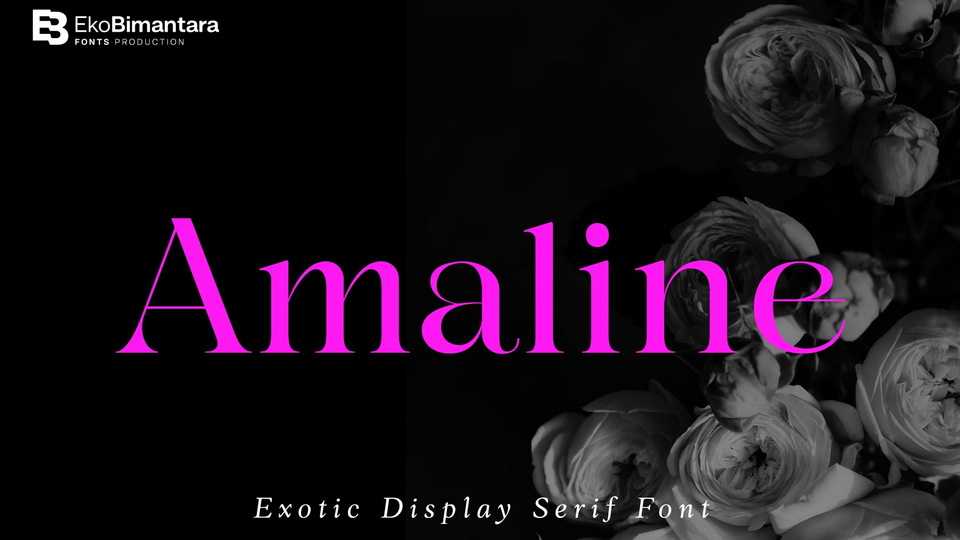
Download Amaline font, a high contrast, exotic display serif. It’s unique letterform shown elegance and beauty. Amaline fits for various design purposes.